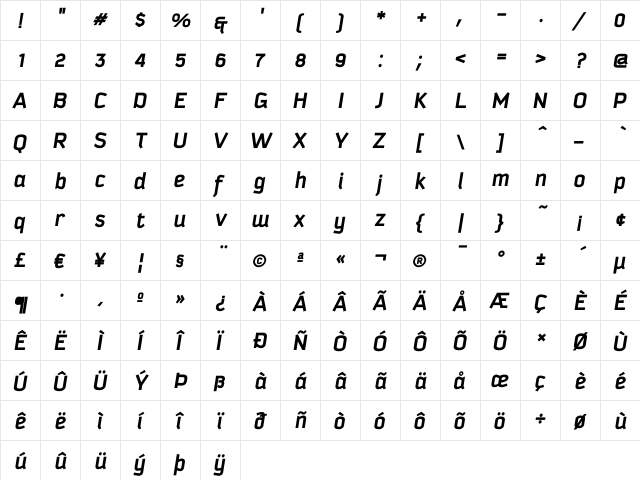
KautivaProC Bold Italic
| Foundry | Alejandro Paul y Alfredo Graziani |
| Designer | Alejandro Paul y Alfredo Graziani |
Design Context for KautivaProC Typeface
KautivaProC is a composed and adaptable typeface that performs quietly and consistently across a wide range of design contexts. The slanted form adds forward momentum and visual energy. Its bold stroke weight gives it real presence on the page.
Pro Tip: Use KautivaProC for emphasis, pull quotes, and subheadings where its slanted energy can add rhythm to the layout.